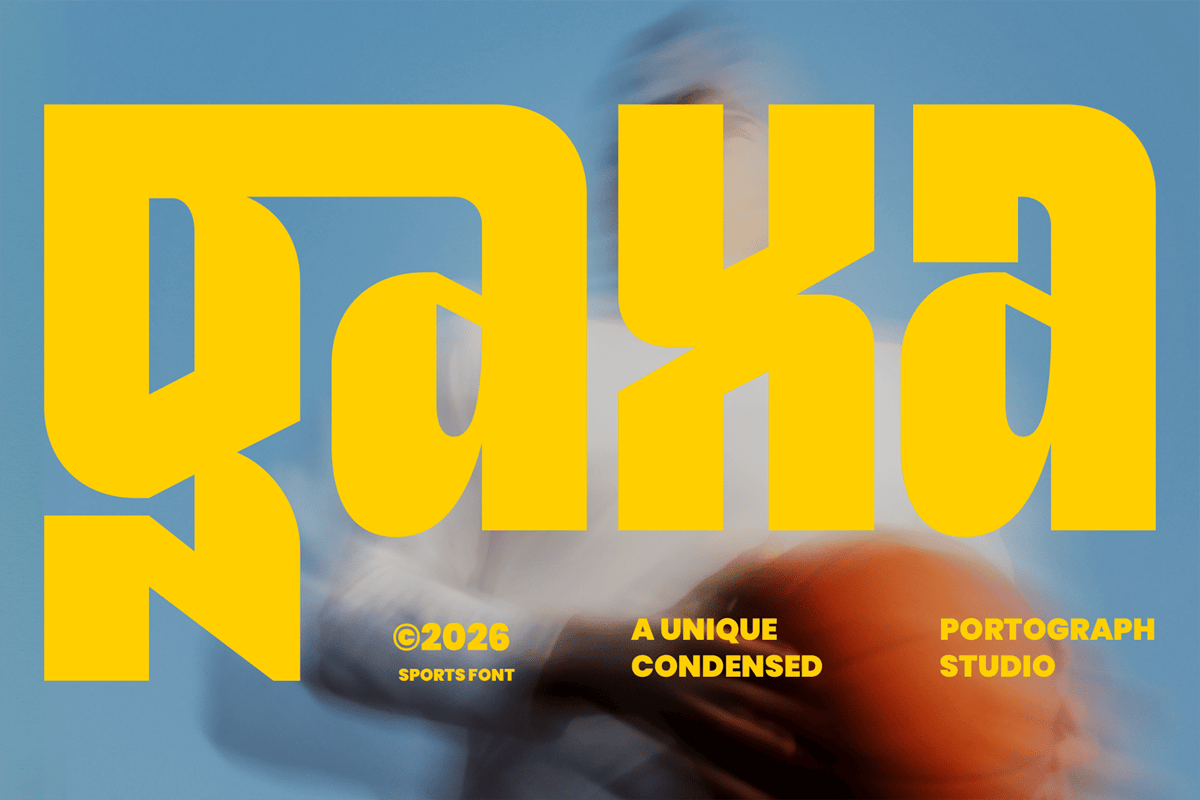
Gaxa – Sports Font
Gaxa delivers bold, condensed impact with sharp experimental edges perfect for sports and athletic branding. This modern display font commands attention with its strong character, built from sharp angles, memorable shapes, and high visual contrast. The confident, edgy aesthetic brings cultural depth to any design project. Perfectly suited for posters, editorial layouts, and brand identity work, Gaxa creates powerful presence with its distinctive personality. Whether you're designing impactful he...